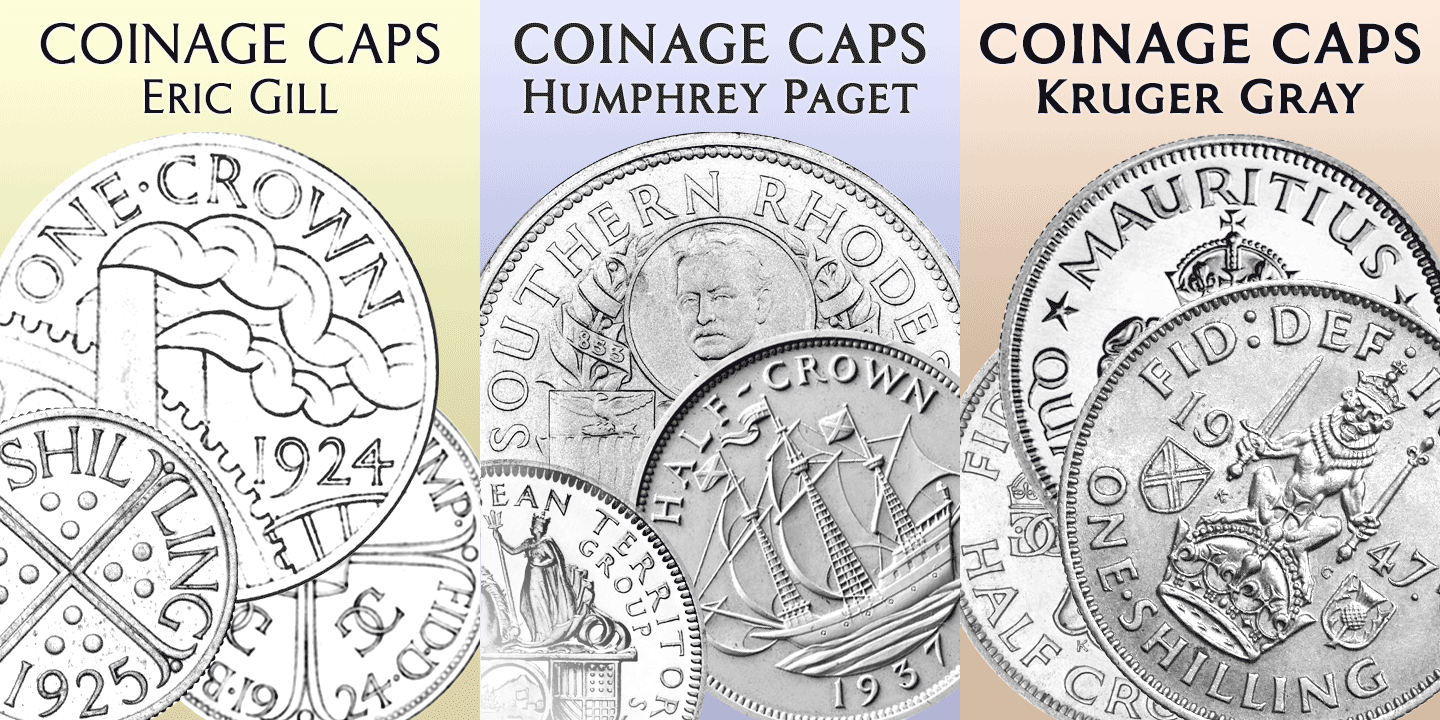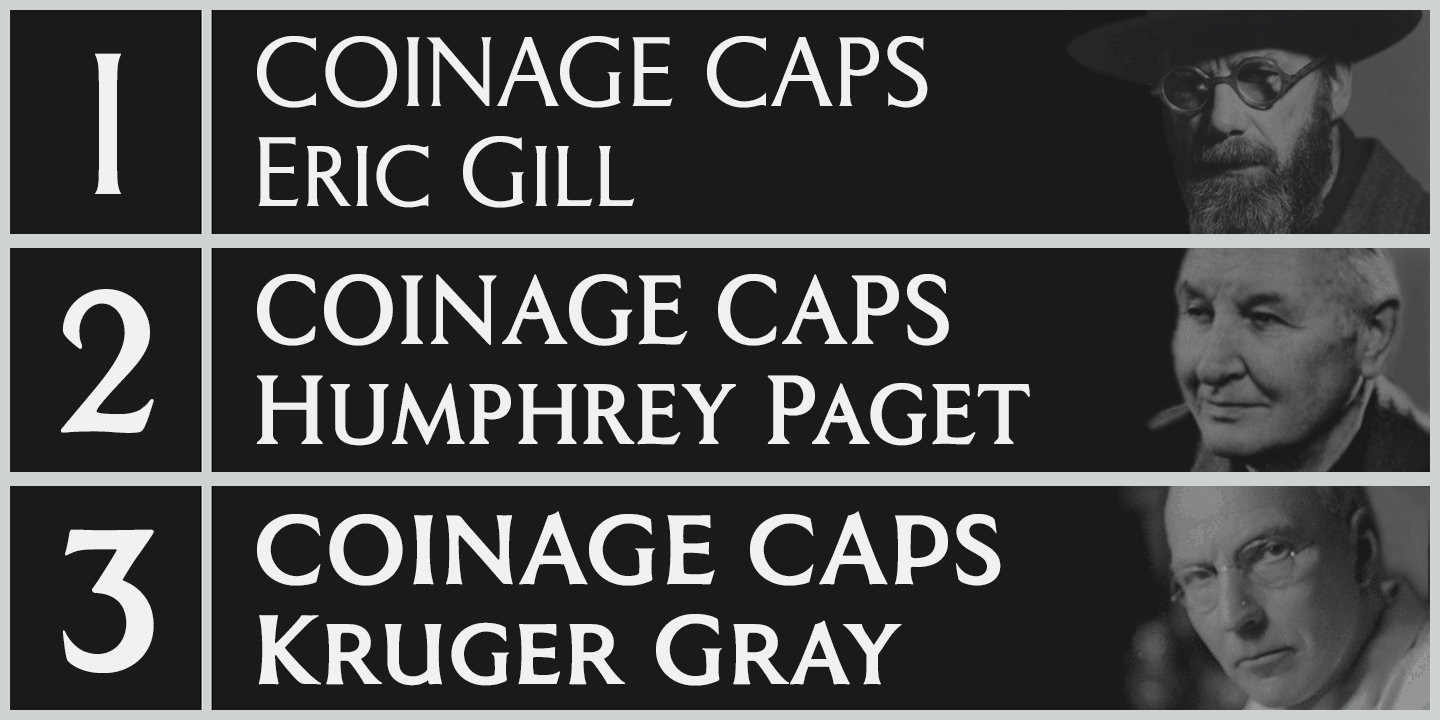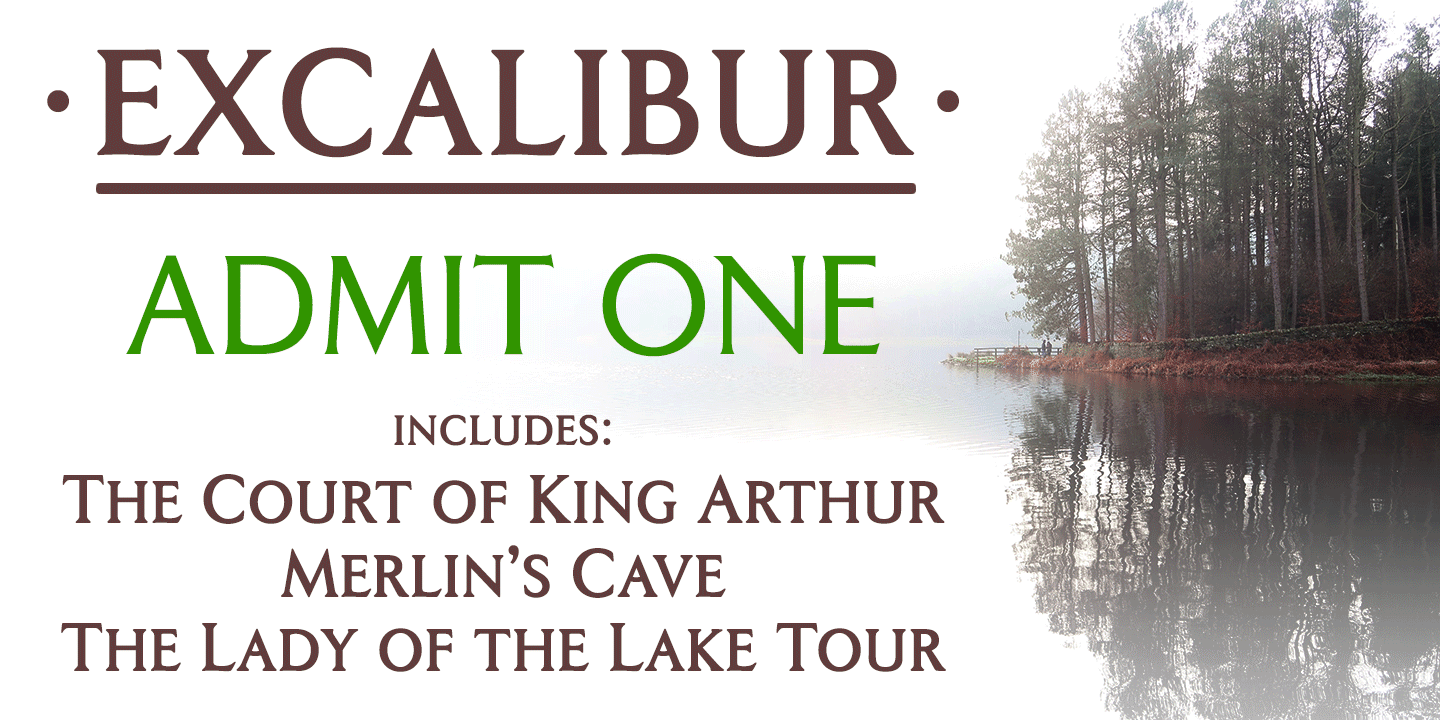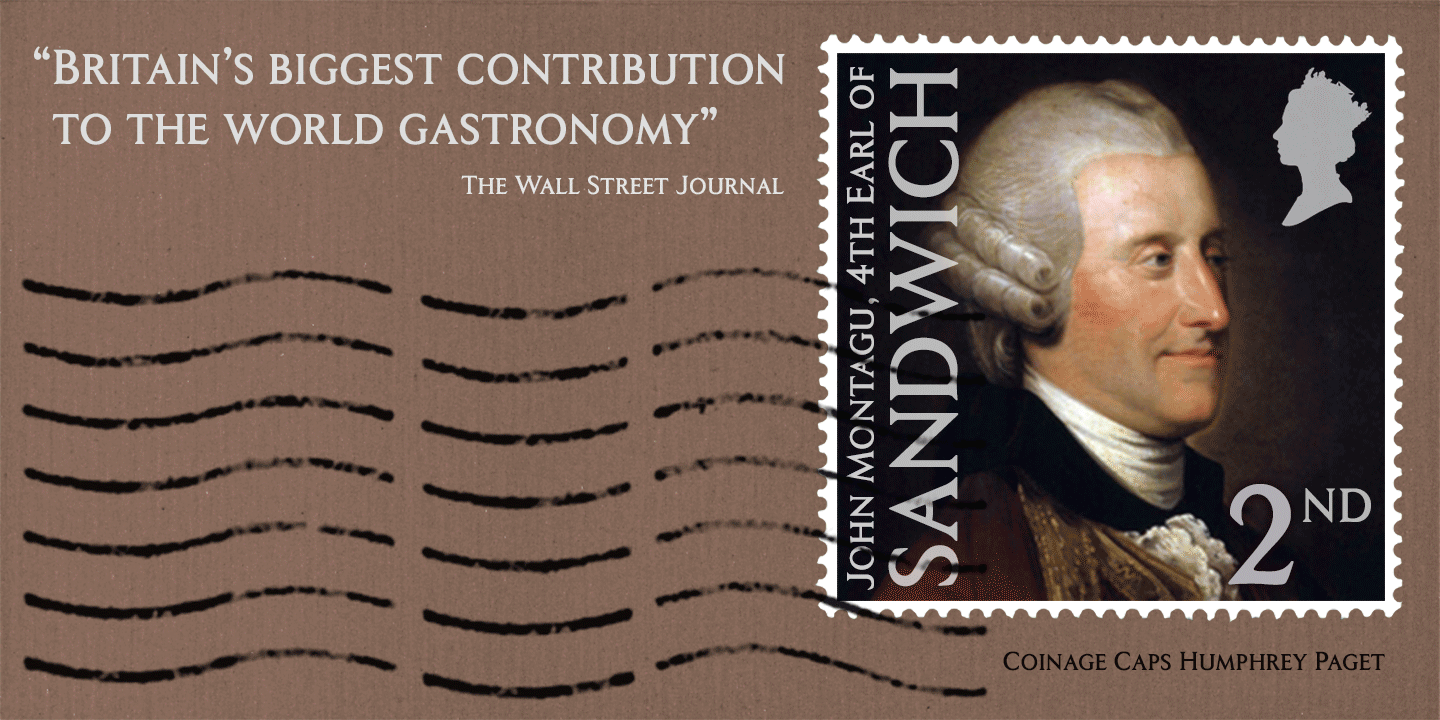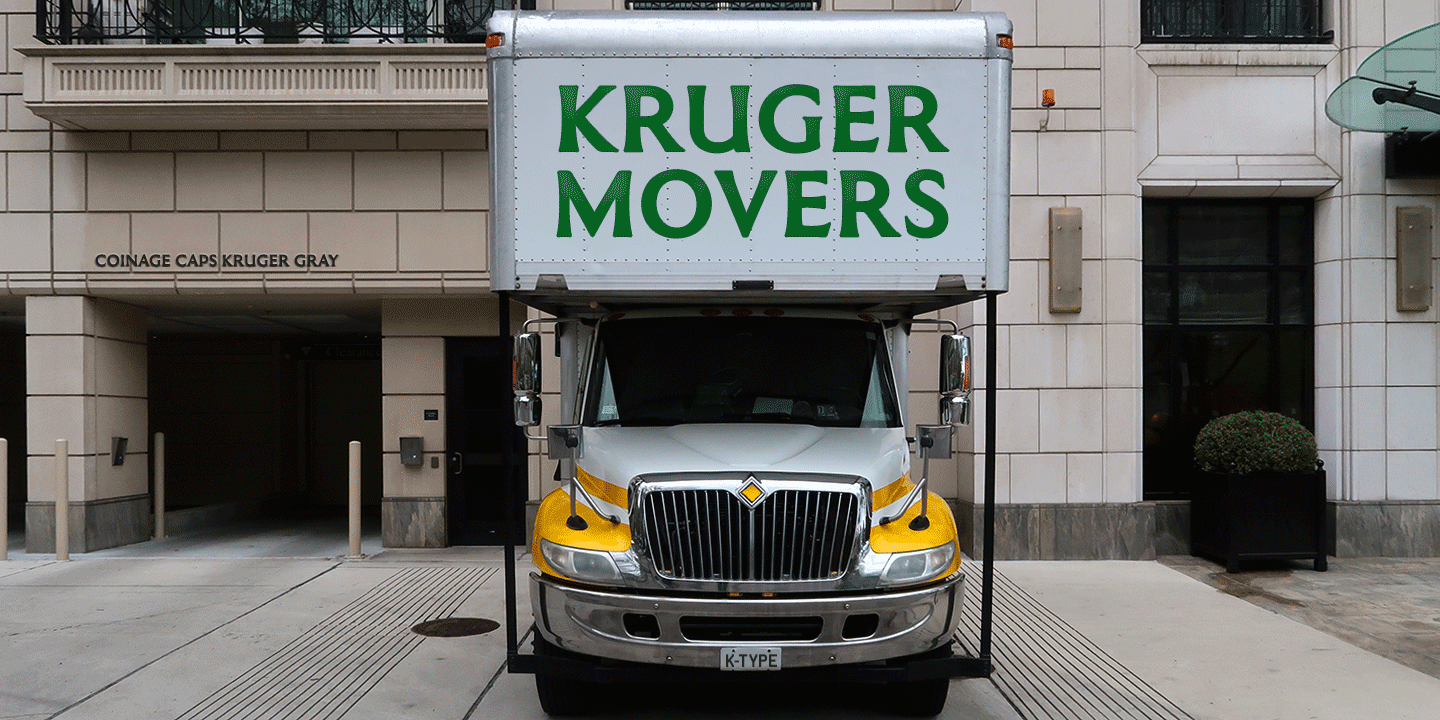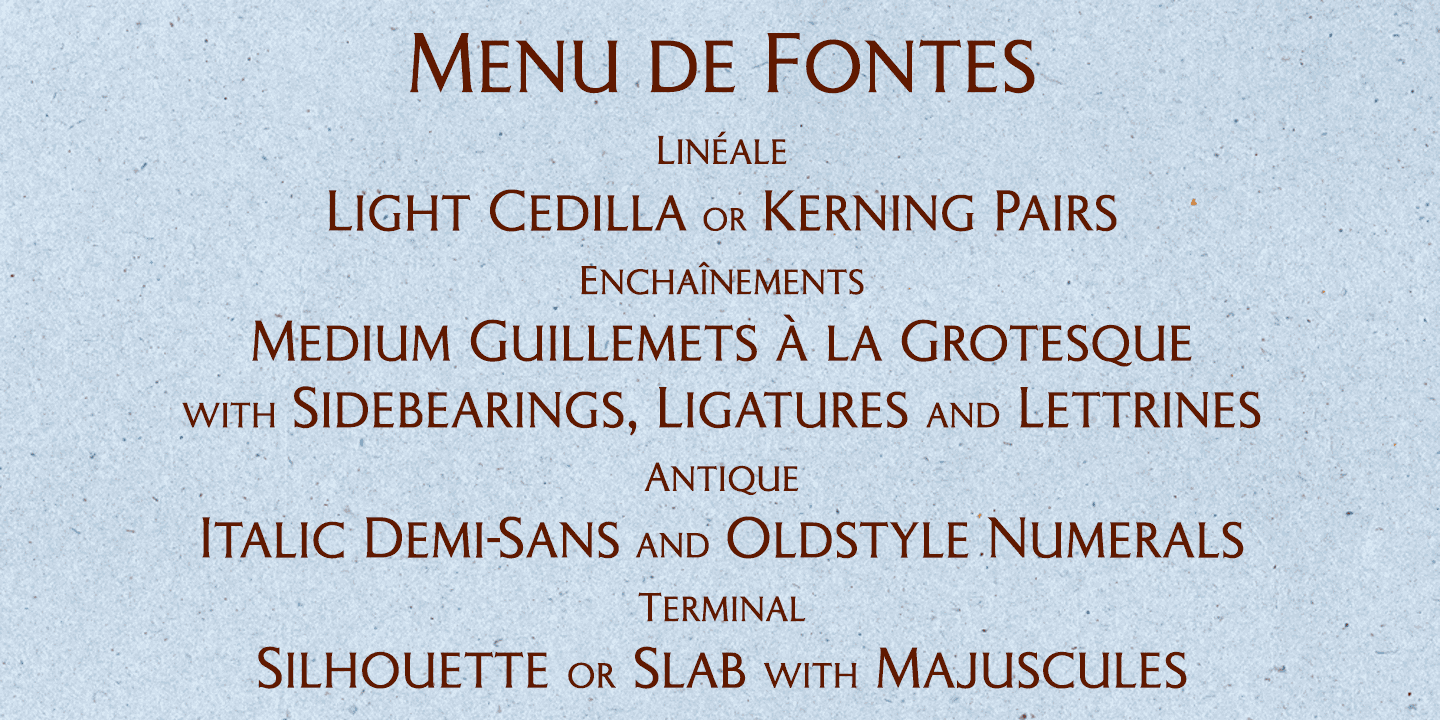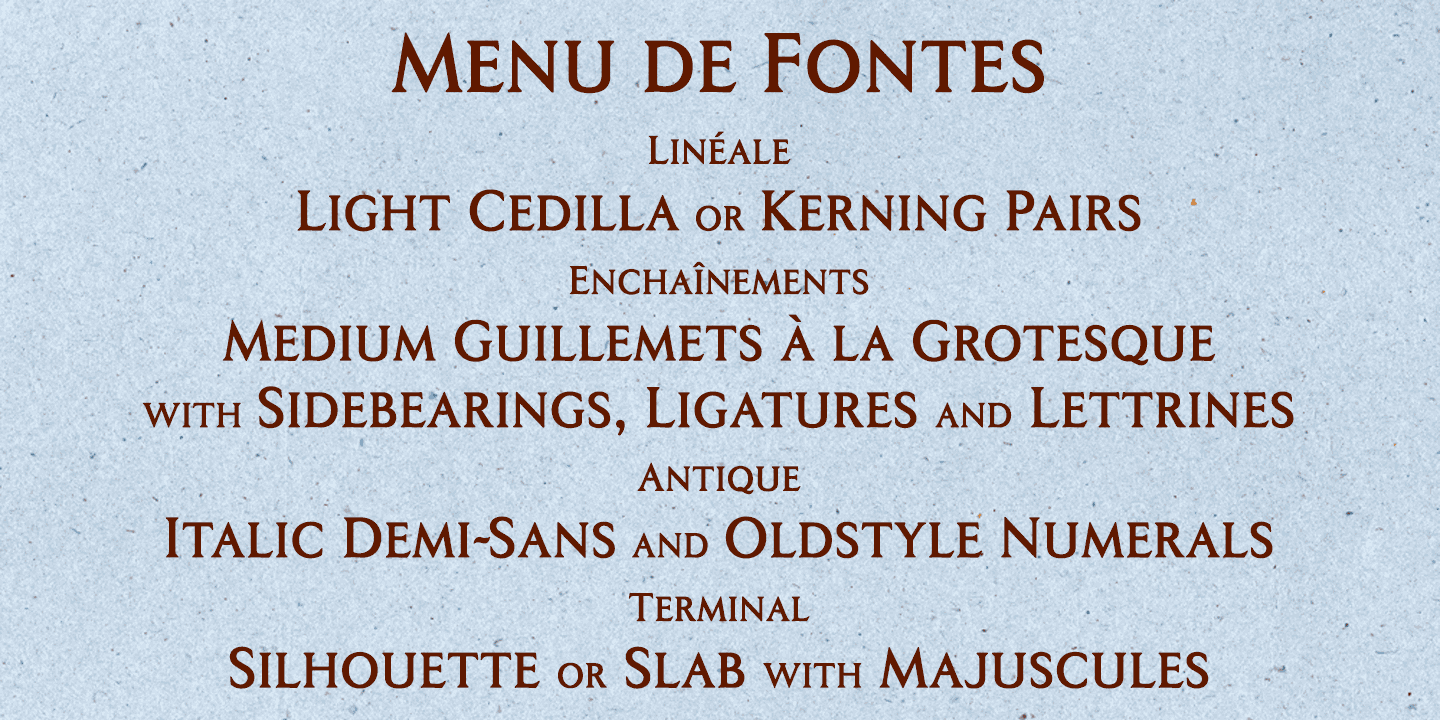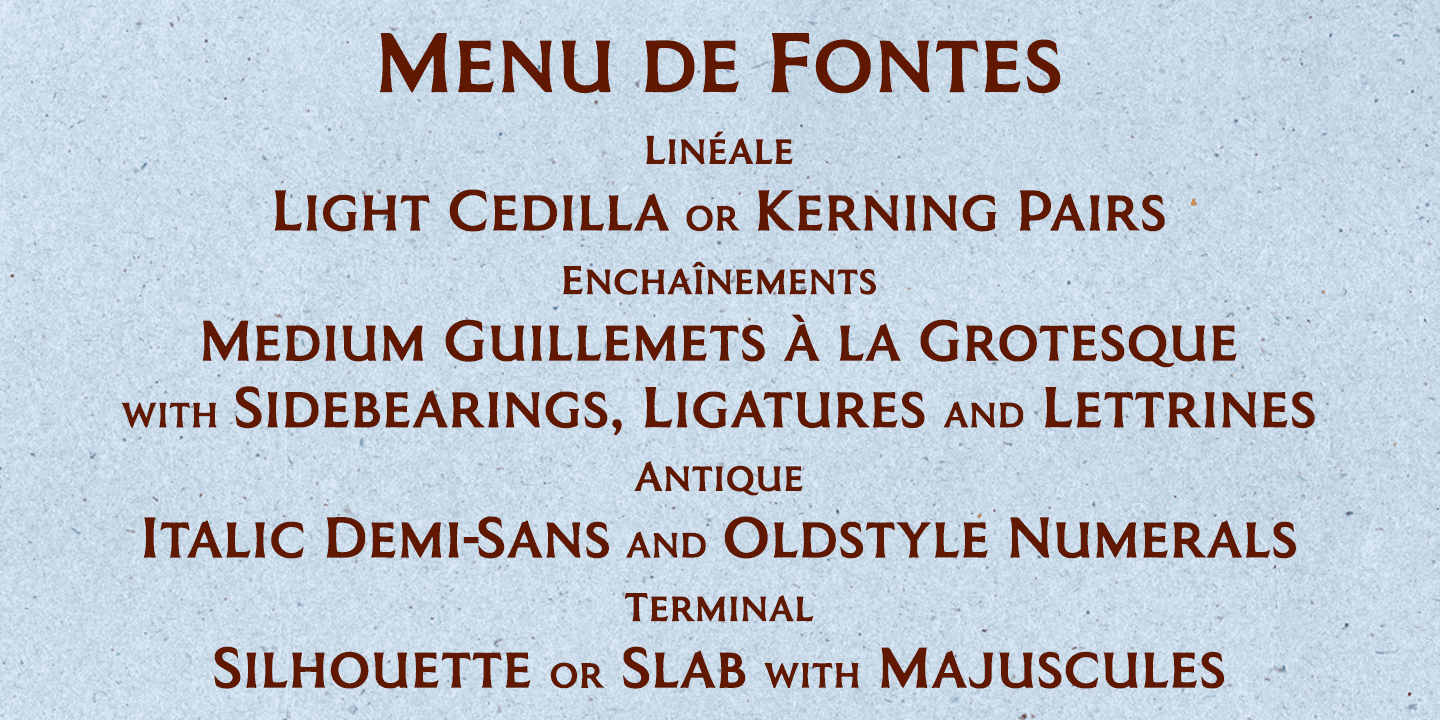
Coinage Caps
Coinage Caps is a trilogy of small caps fonts based on the Roman lettering used for the designs of British coinage. All three fonts are included in the download.
• Coinage Caps Eric Gill is a regular weight, spur serif style drawn by Eric Gill for silver coin designs in the 1920s which were rejected by the Royal Mint.
• Coinage Caps Humphrey Paget is a medium weight serif based on the lettering of Thomas Humphrey Paget, designer of the Golden Hind Halfpenny first struck in 1937. This font simulates the soft, slightly rounded corners of the minted letterforms.
• Coinage Caps Kruger Gray is a glyphic, flare serif font typical of the bold style engraved by George Kruger Gray for numerous British and Commonwealth coins during the 1920s and 30s. This font also simulates the slightly rounded corners of the minted letterforms.